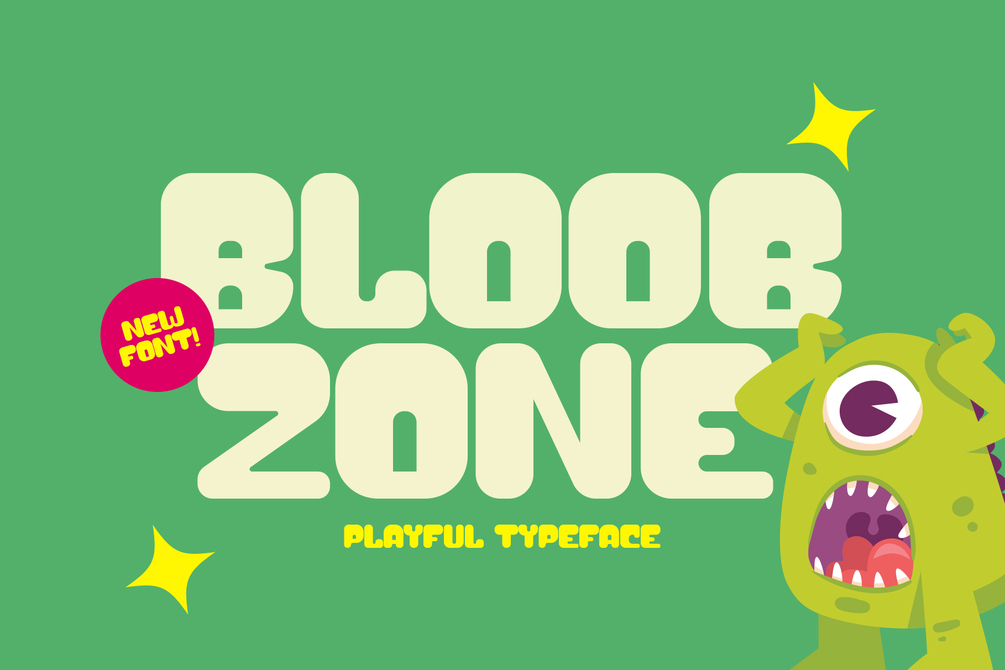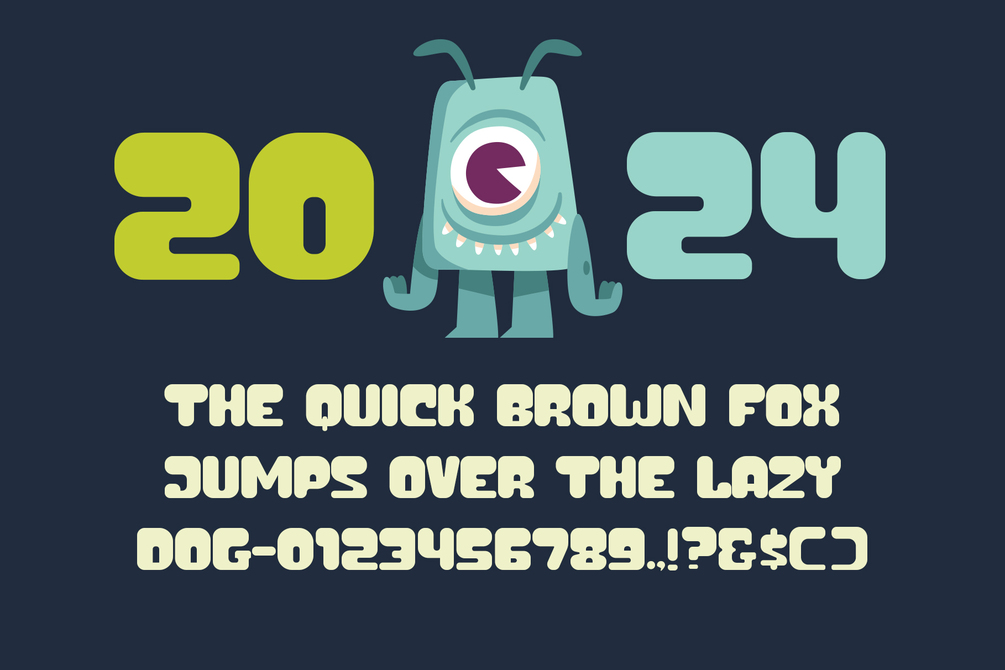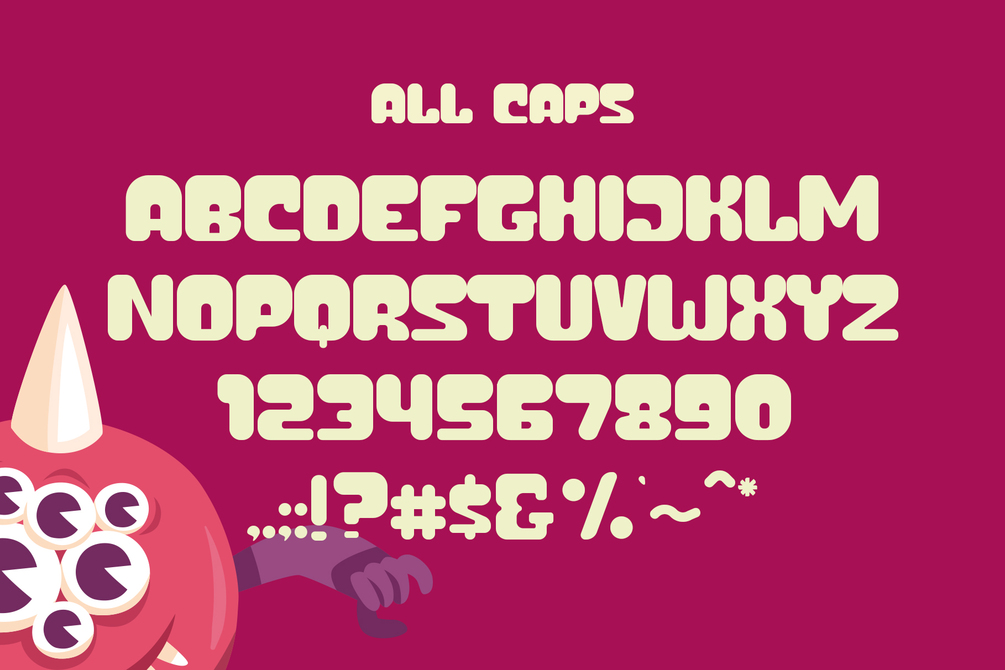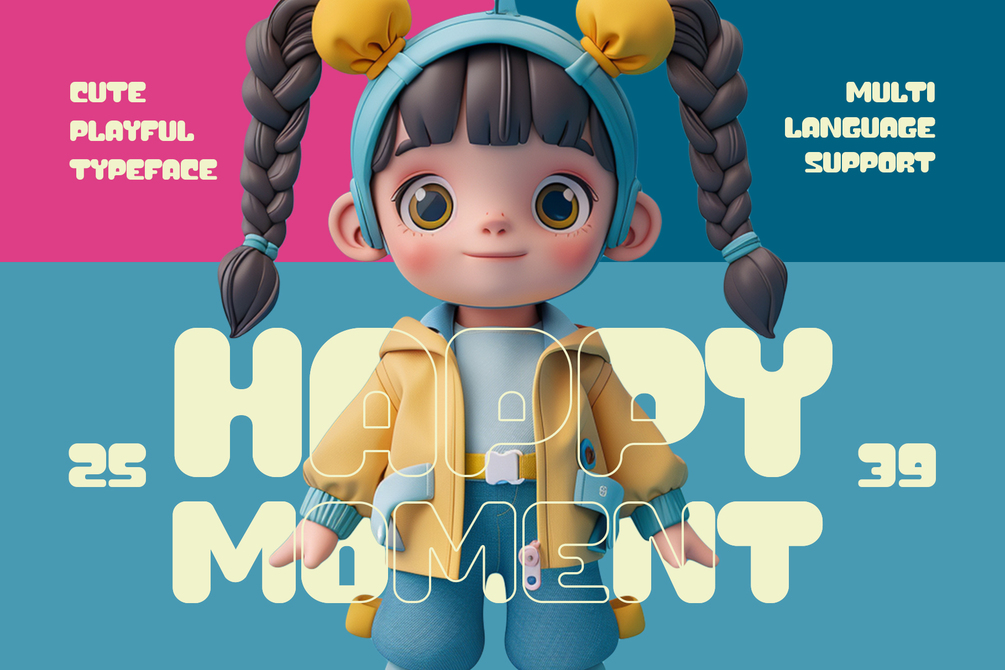
Bloob Zone - Playful Typeface
Introducing Bloob Zone - Playful Typeface, a fun and lively typeface that brings a sense of joy and energy to your designs. Bloob Zone features a simple, cute, and bold character design, making it perfect for projects that need a playful and eye-catching touch. This font includes all caps characters, numbers, and punctuation, along with multilingual support, ensuring its versatility and usability in a wide range of creative applications.
Key Features:
• Character Design
• All Caps
• Numbers and Punctuation
• Multilingual Support
Perfect For:
• Children’s Books
• Party Invitations
• Toy Packaging
• Fun Posters
• Social Media Graphics
Bring a burst of fun to your projects with Bloob Zone - Playful Typeface. Whether you’re designing delightful children’s books, vibrant party invitations, or engaging social media posts, Bloob Zone adds a playful and energetic vibe to every design.